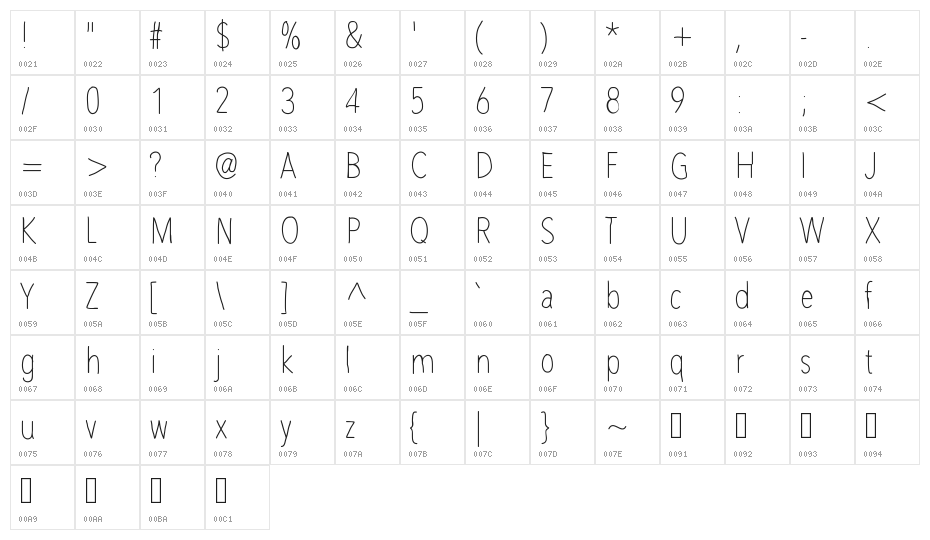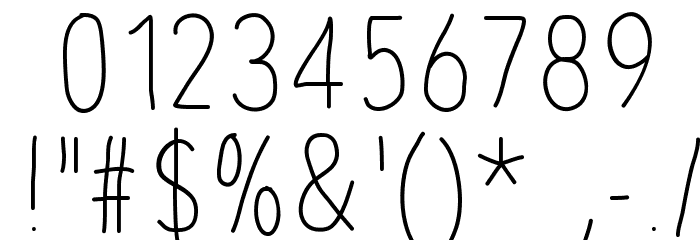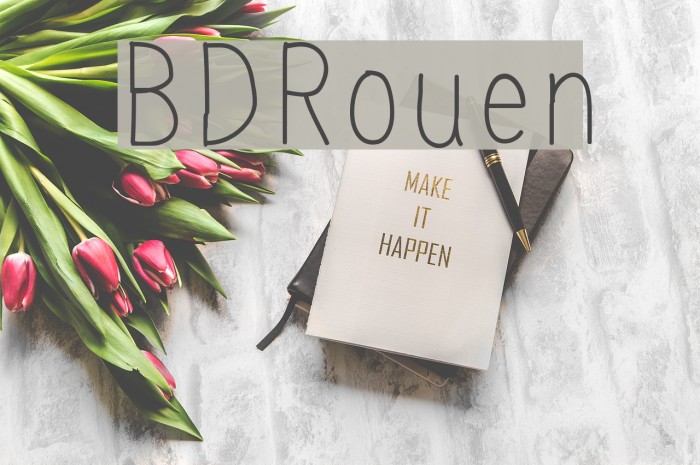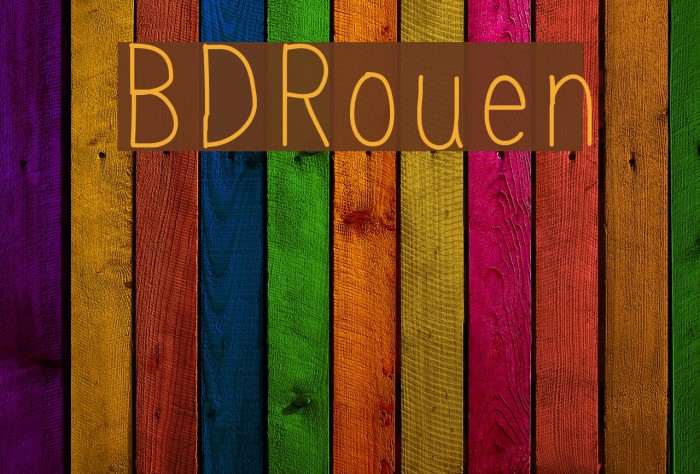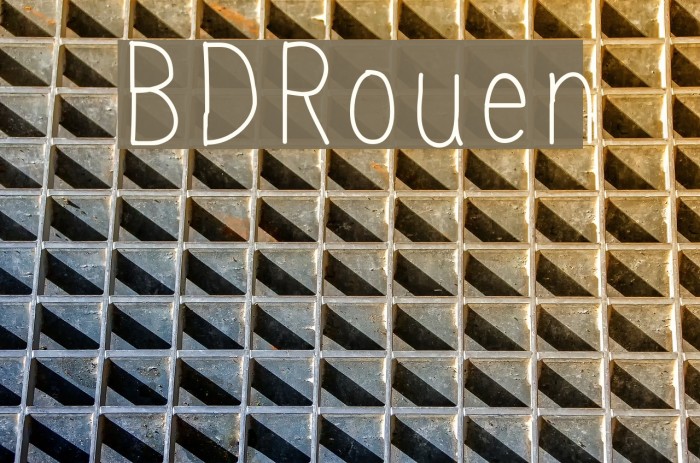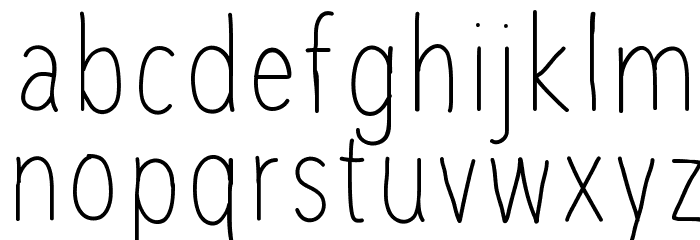
BDRouen Font
BDRouen Description
This font features a playful and casual handwritten style, characterized by its thin strokes and slightly irregular lines that give it a personal touch. The uppercase letters are tall and narrow, while the lowercase letters maintain a consistent height, contributing to a cohesive look. The numbers and special characters follow the same design principles, ensuring uniformity across all elements. Its simplicity and legibility make it suitable for a variety of uses, while the unique handwritten quality adds a touch of personality and warmth.
BDROUEN UPPERCASE
BDROUEN LOWERCASE
BDROUEN OTHER CHARS
| Use Case | Headlines, Logos, Informal text |
| Proposed Projects | Ideal for personal projects, greeting cards, invitations, and informal branding. |